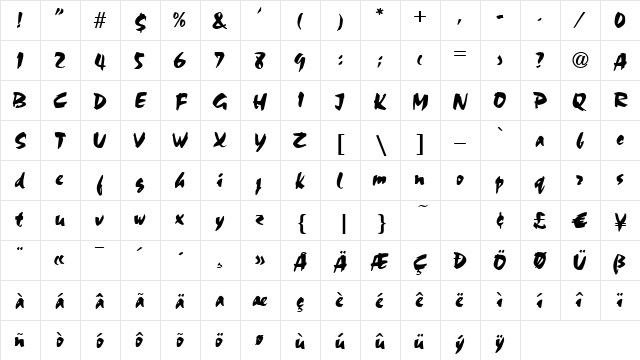
Script-C720 Bold
Design Context for Script-C720 Typeface
Script-C720 flows with the natural rhythm of handwritten lettering, making it ideal for designs that call for warmth and personal expression. Its bold stroke weight gives it real presence on the page.
Font Pairing: Combine Script-C720 with a simple geometric sans for maximum contrast — the tension between flowing curves and clean structure is a classic typographic pairing.
Pro Tip: Use Script-C720 for short runs of text — names, titles, or taglines. Extended body copy in script faces tires the eye quickly.